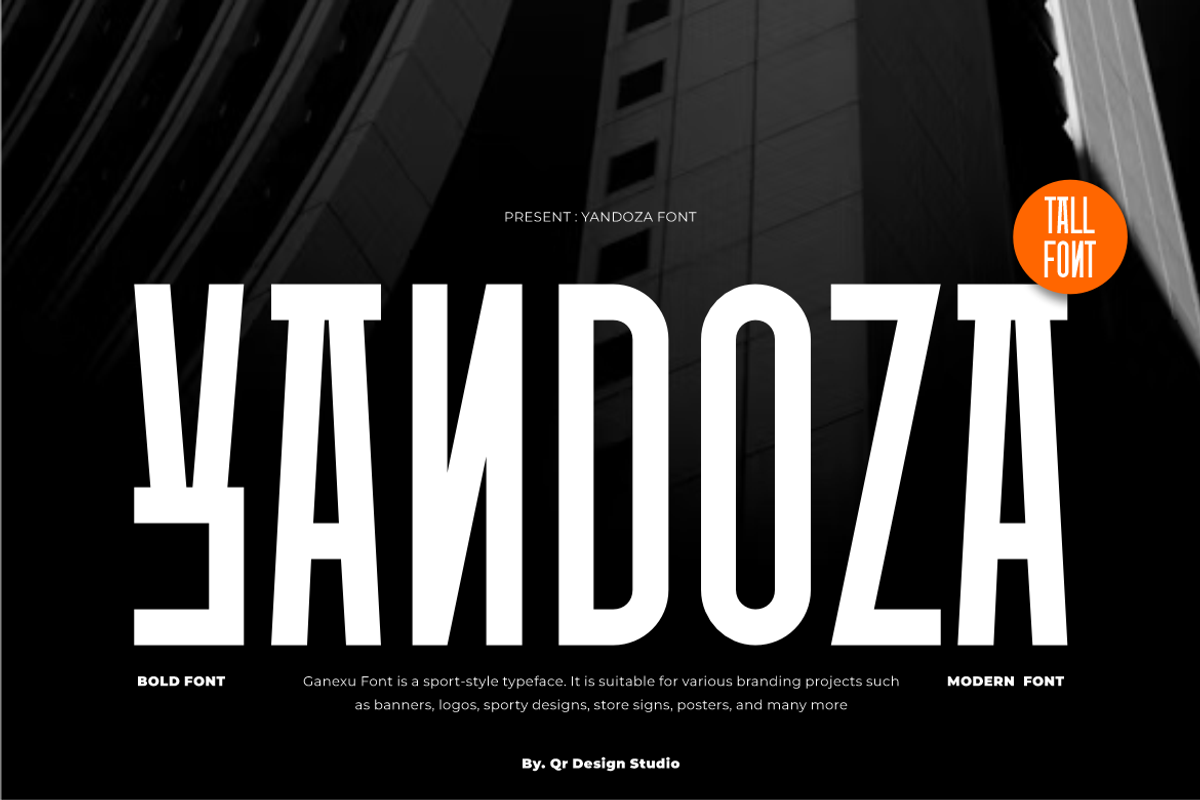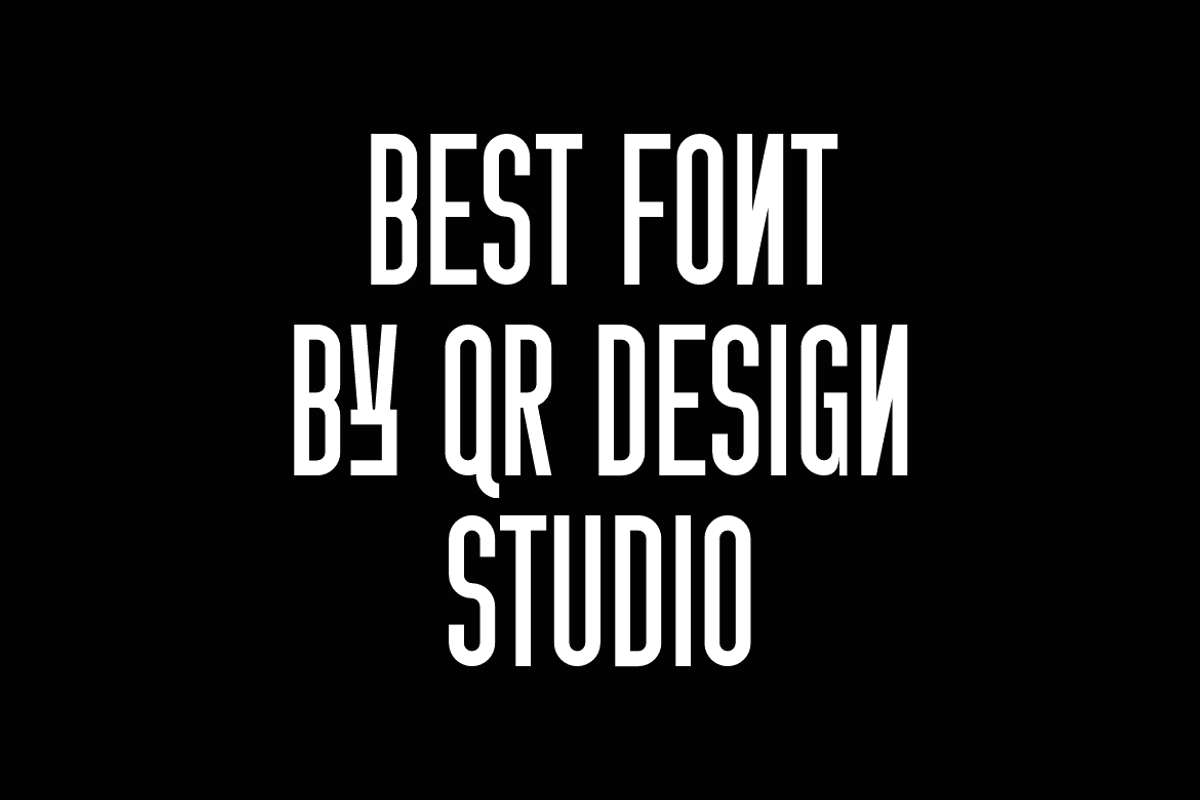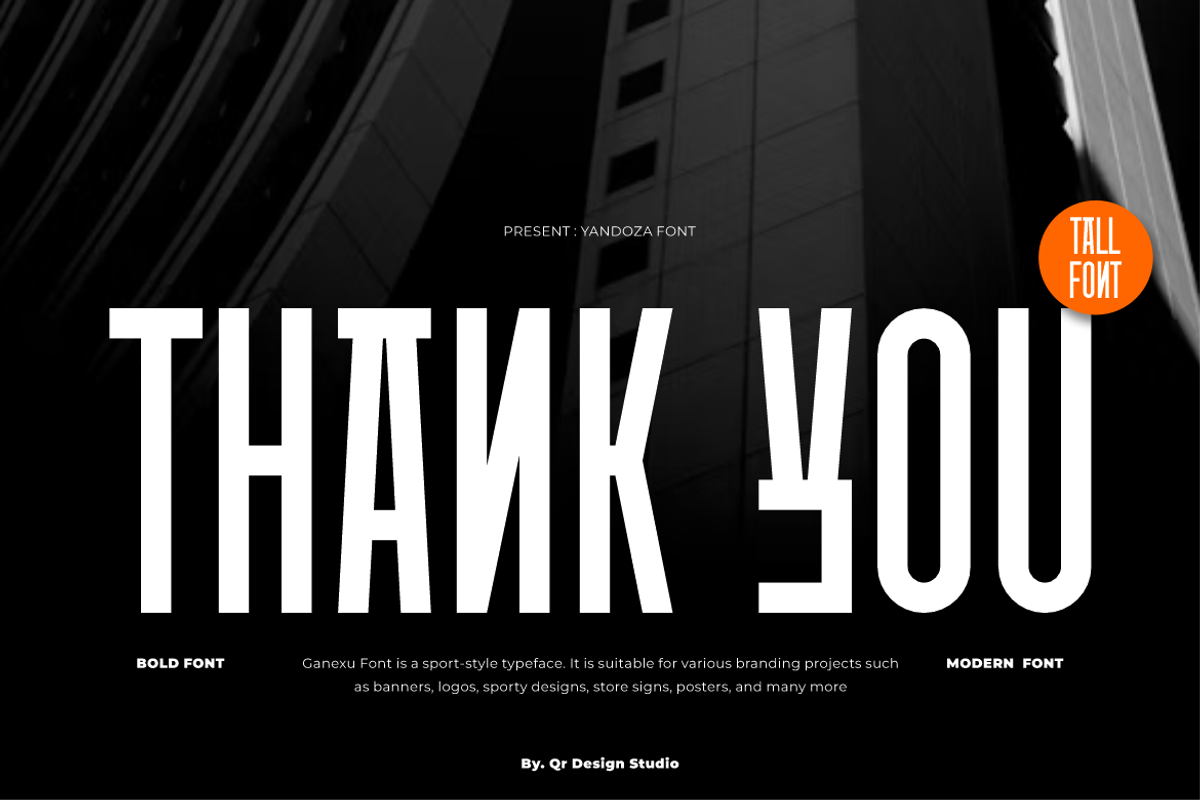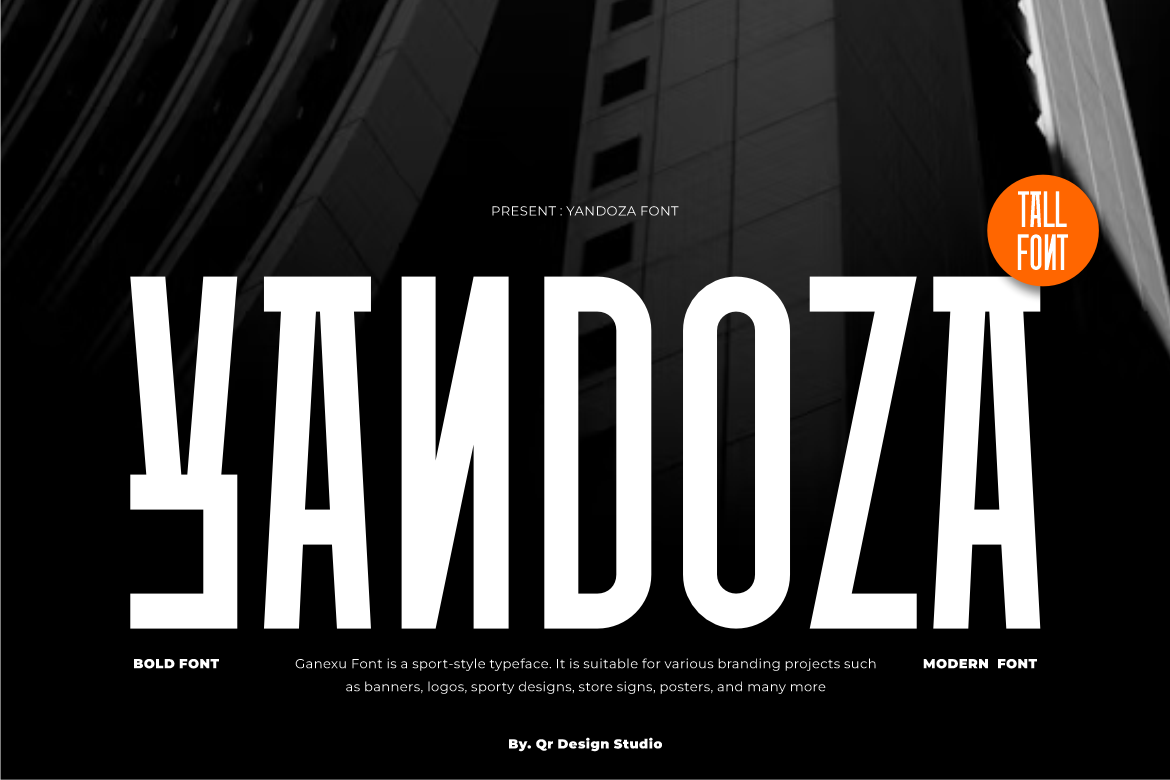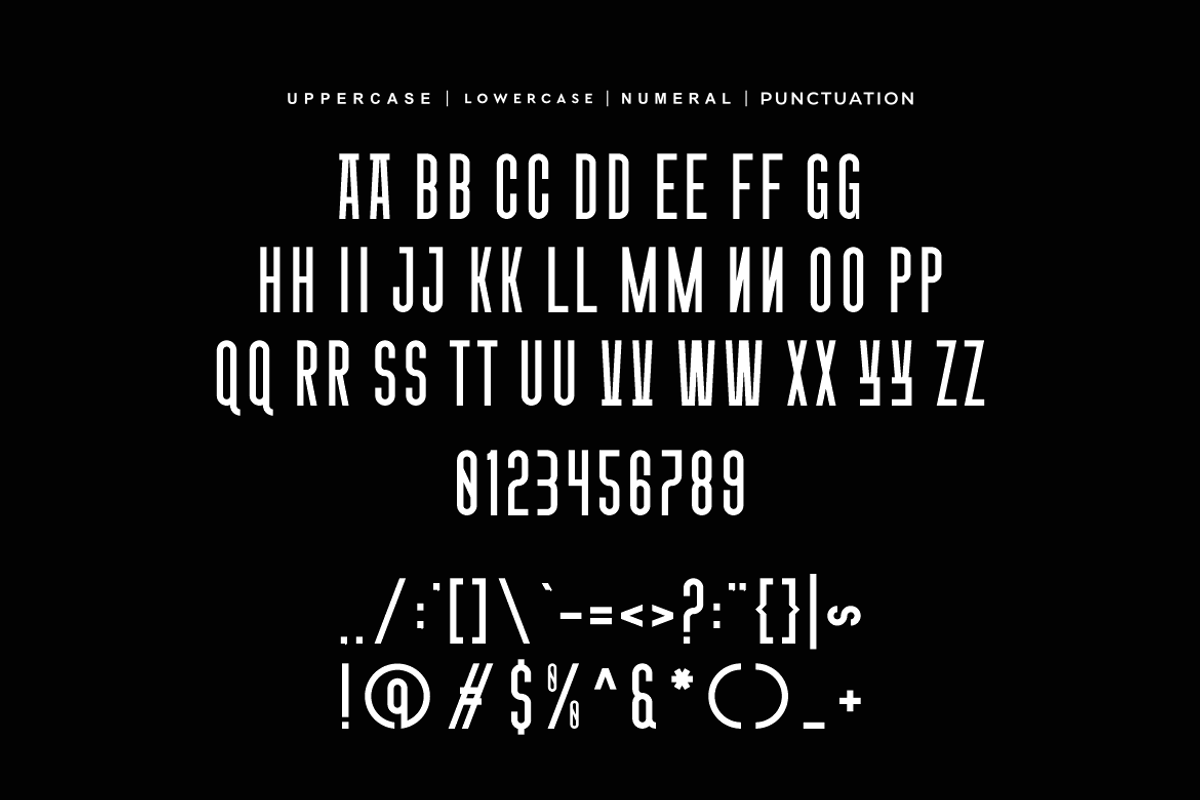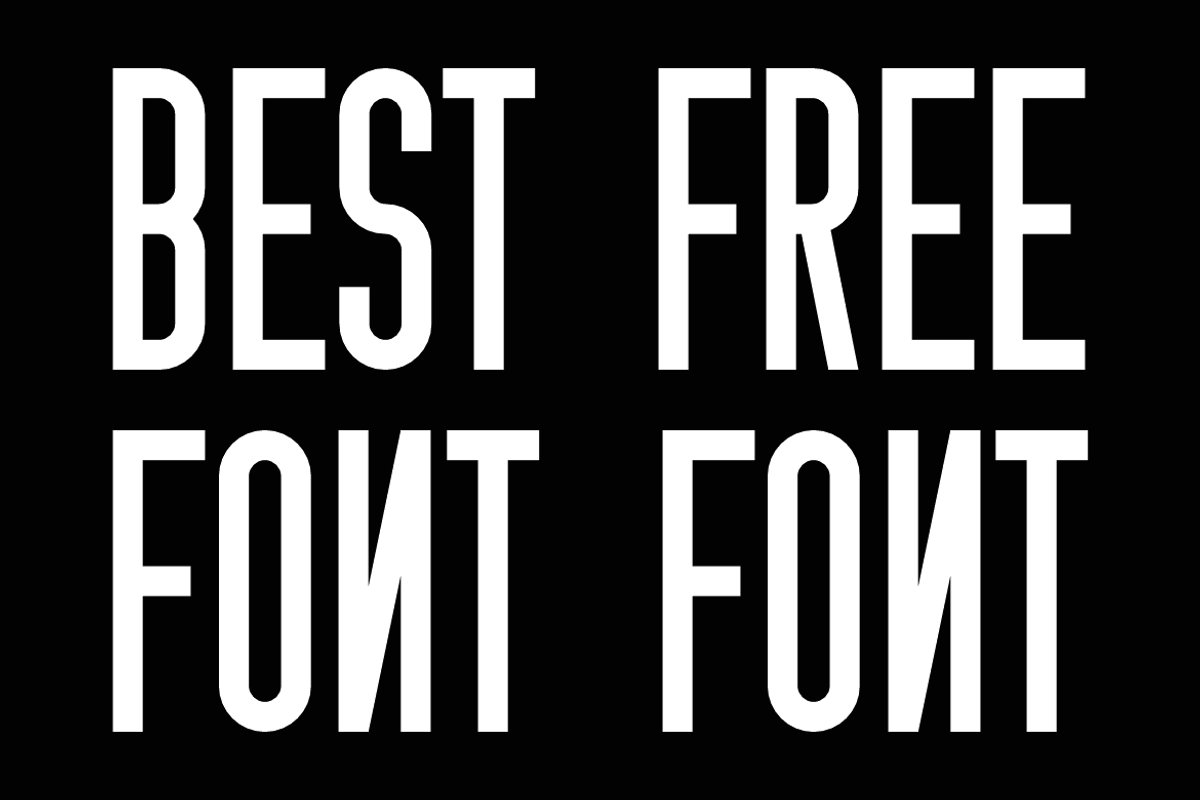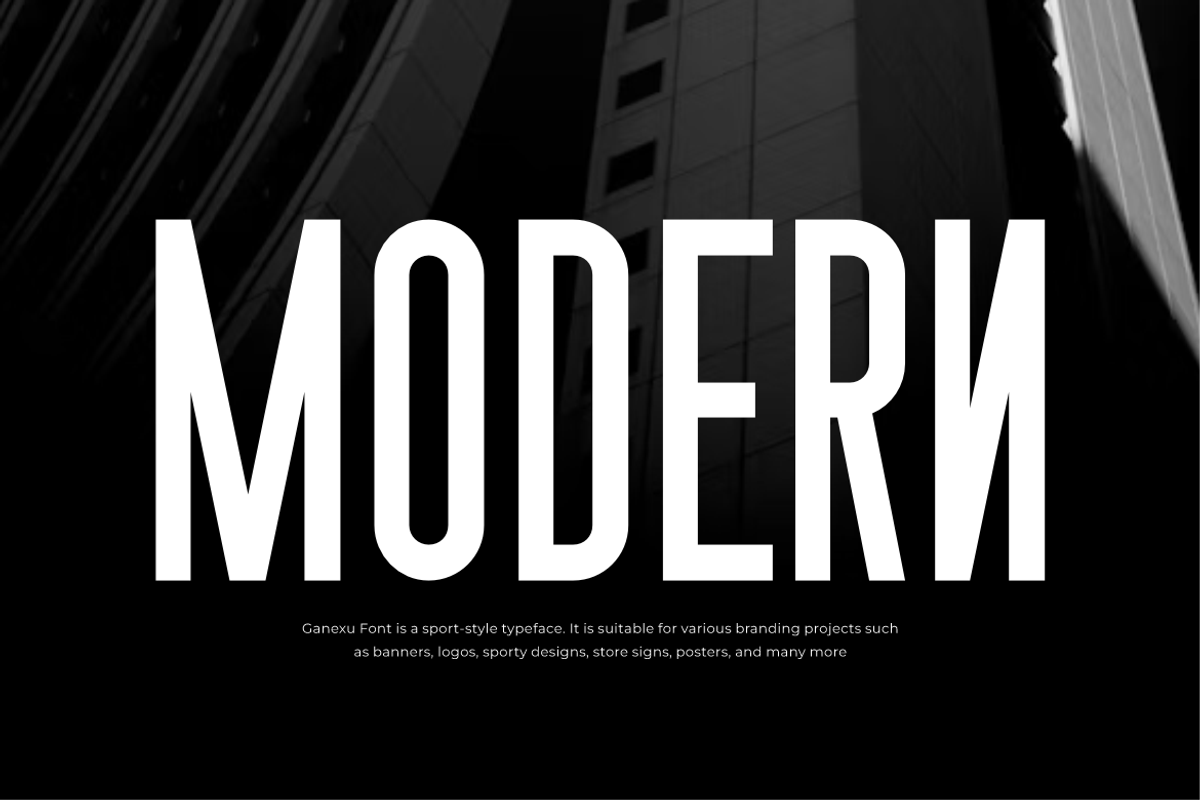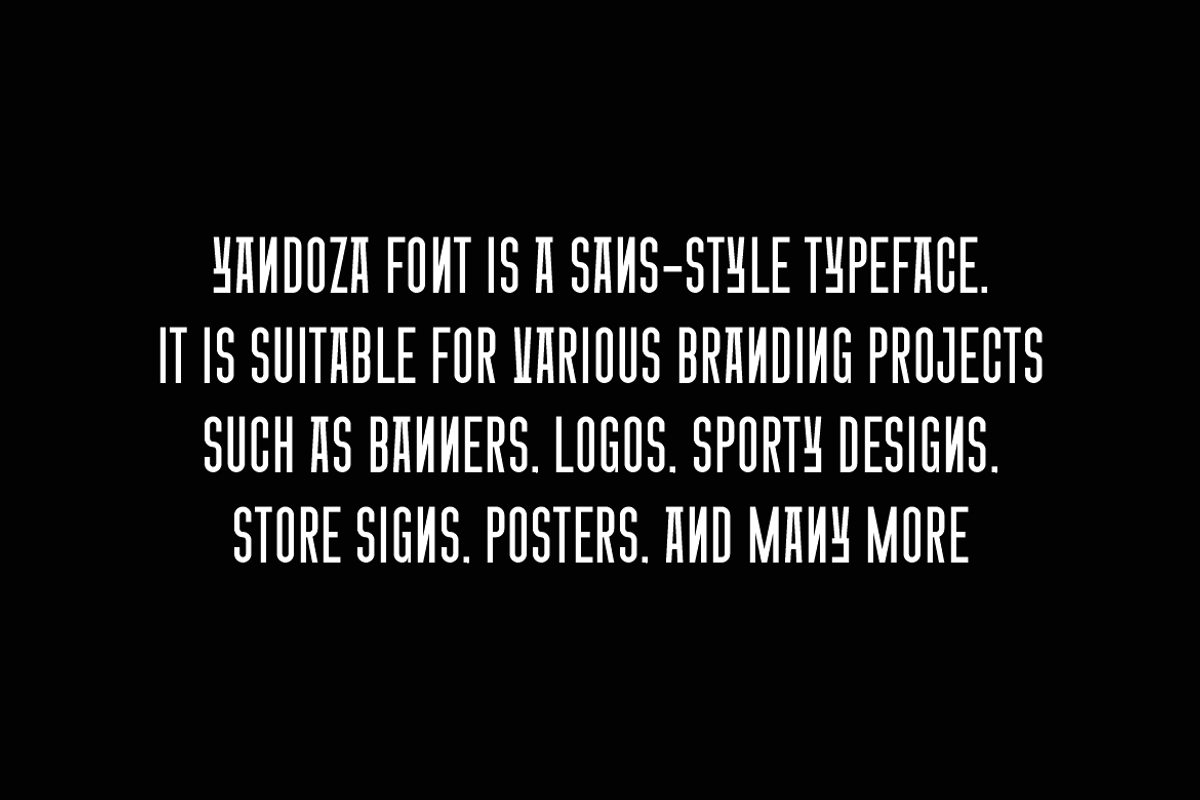
Yandoza - Modern Tall Font
Yandoza Font is a modern and authentic display typeface. It’s perfect for various branding projects such as logos, sports designs, and more. This font stands out beautifully in a wide range of contexts.